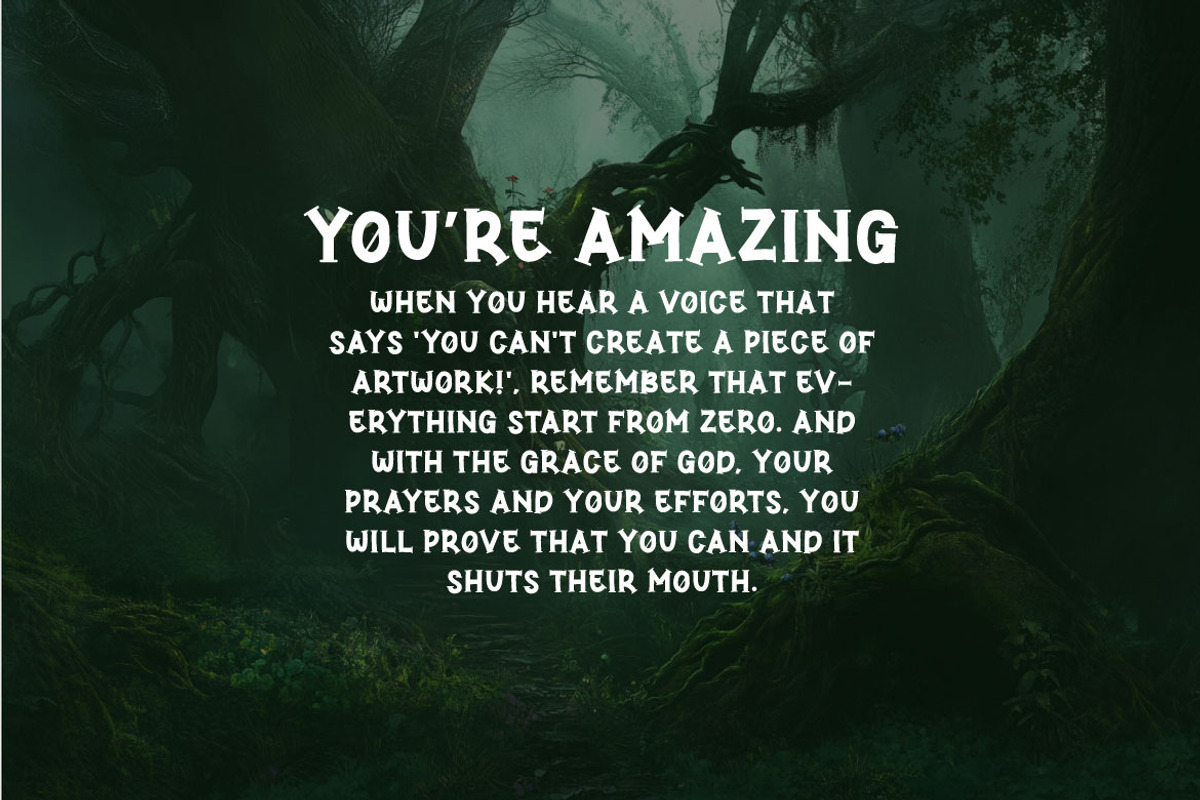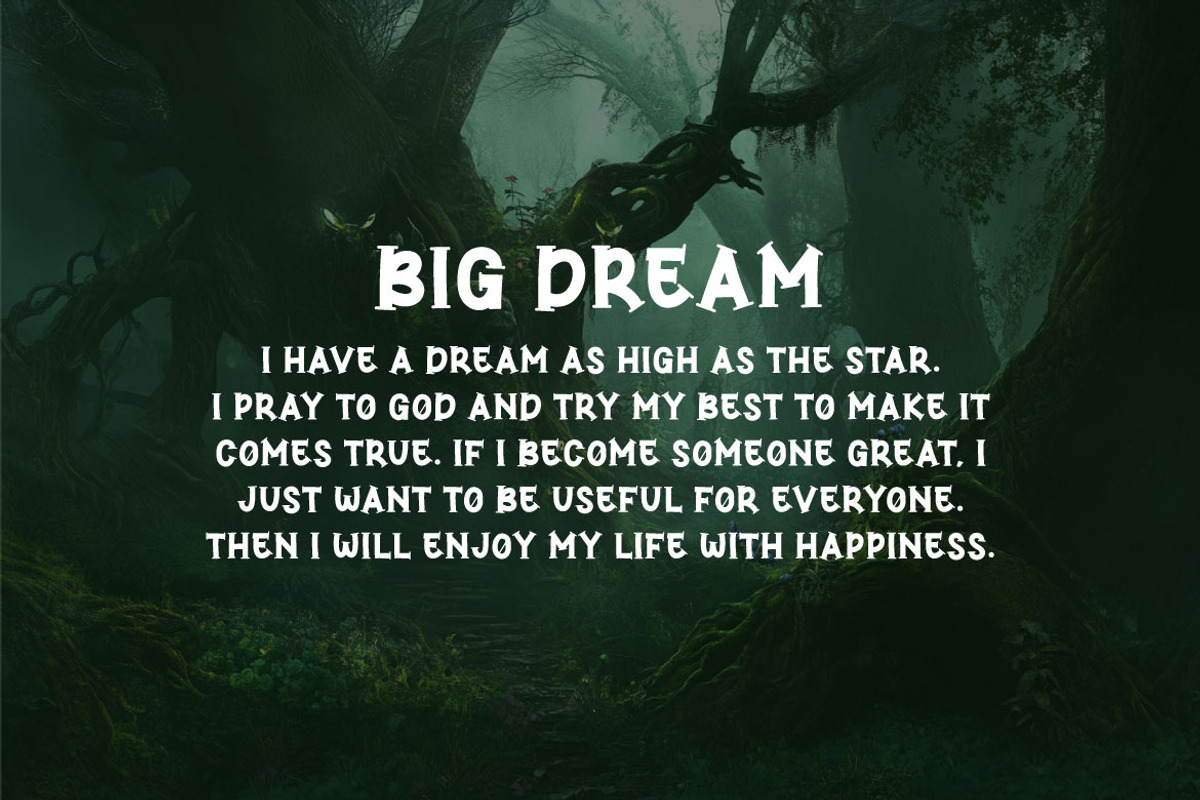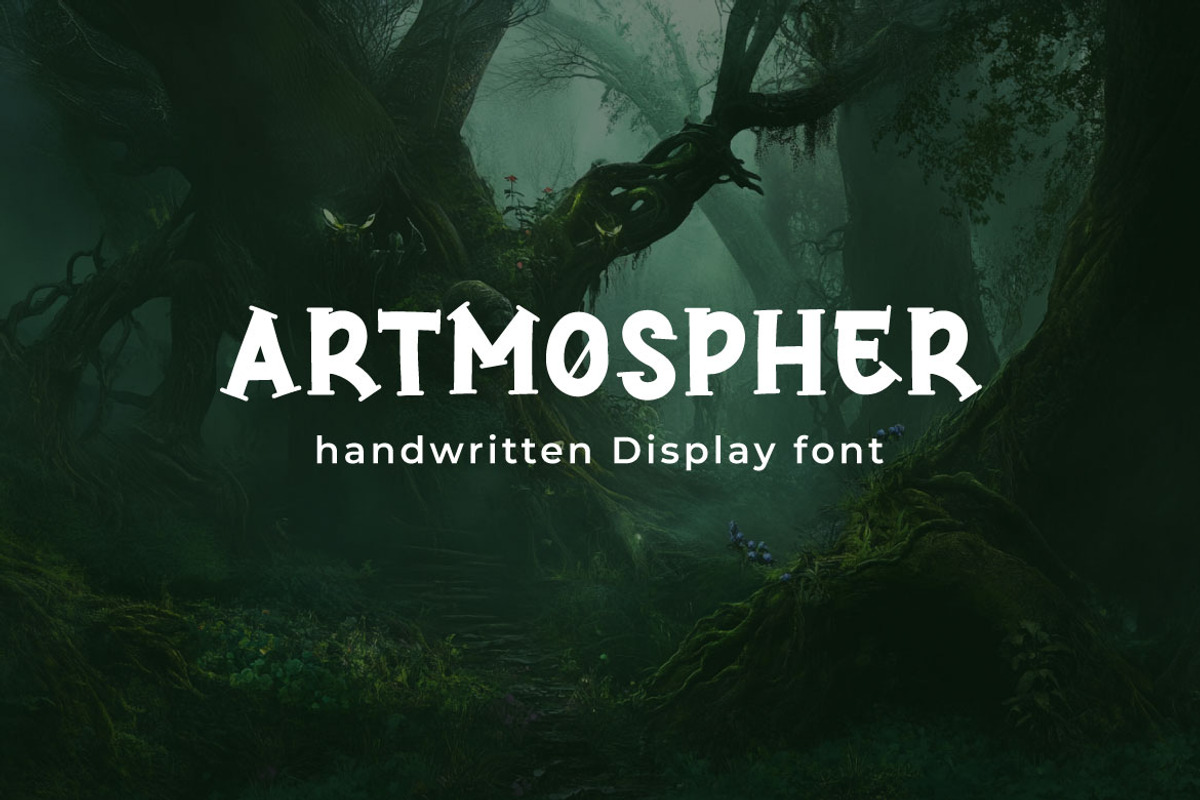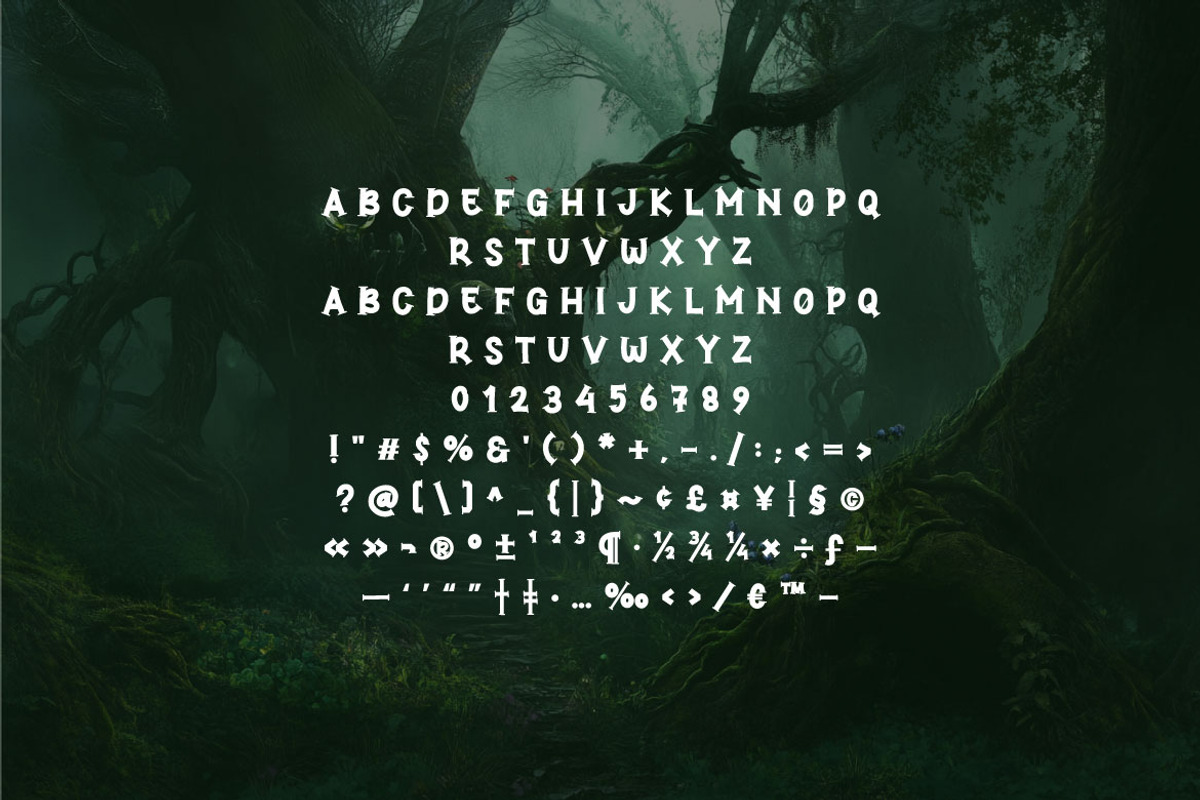
Artmospher Handwritten Display Font
Artmospher is a playful and stylish handwritten display font that adds a bold, creative touch to any project. With its organic, hand-drawn aesthetic, this font is perfect for designs that require a personal and artistic flair. Whether you're working on branding, social media graphics, packaging, posters, or invitations, Artmospher brings a fun and approachable character to your typography.
Add a burst of personality to your next project with Artmospher - Handwritten Display Font, and let your designs speak with a creative, hand-drawn voice!